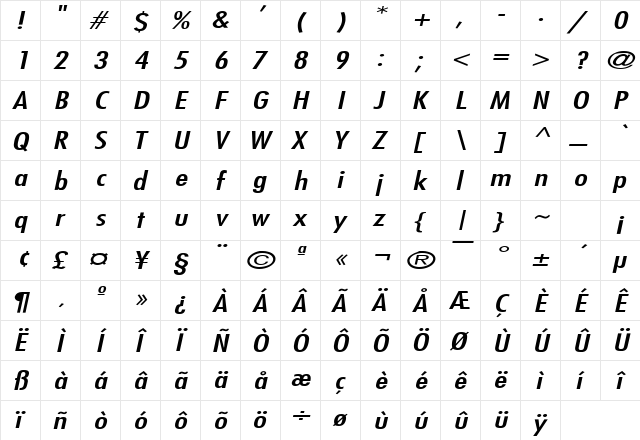
Fuji Extended Italic
Design Context for Fuji Extended Typeface
Fuji Extended is a composed and adaptable typeface that performs quietly and consistently across a wide range of design contexts. The slanted form adds forward momentum and visual energy.
Pro Tip: Use Fuji Extended for emphasis, pull quotes, and subheadings where its slanted energy can add rhythm to the layout.